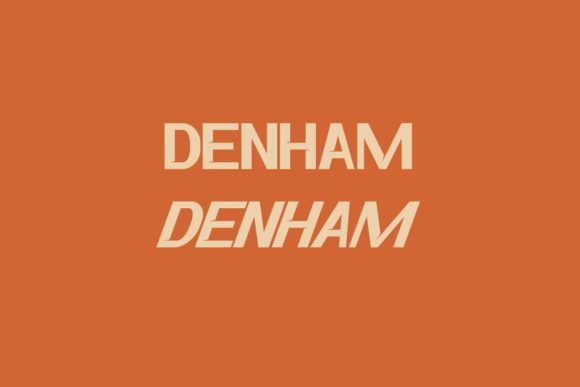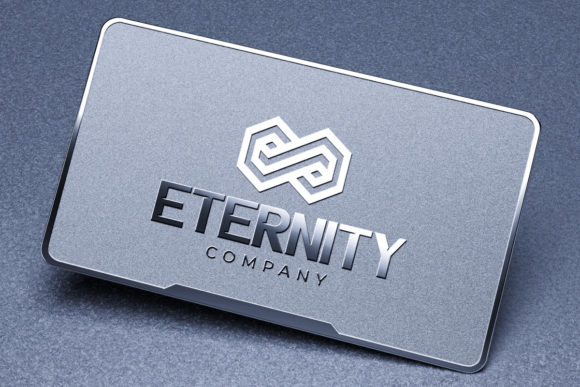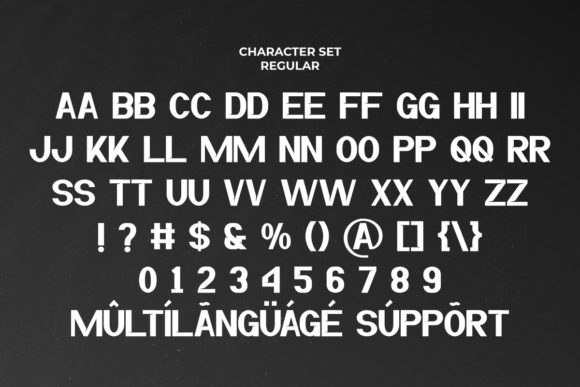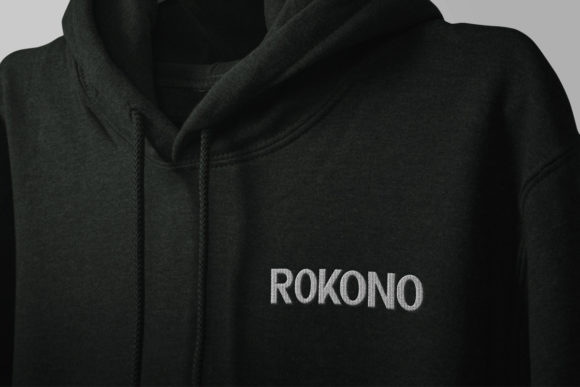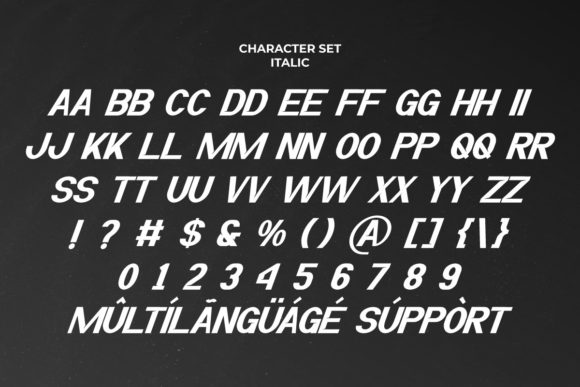
Introducing Denham Font: The Bold and Versatile Sans Serif for Your Creative Projects
Are you on the lookout for a font that can add a touch of boldness and uniqueness to your designs? Look no further than the Denham Font. This sans serif font is designed to make a statement, with its thick letters and sleek lines that can instantly elevate your creative projects. Whether you’re working on a logo, a brochure, or a website, Denham Font is an excellent choice to make your designs stand out from the crowd.
What Makes Denham Font So Special?
Denham Font is a bold and thick lettered sans serif font that is incredibly versatile. Its clean and modern design makes it perfect for a wide range of projects, from branding and advertising to packaging and digital media. The font’s bold and eye-catching style ensures that your message will grab the attention of your audience, making it an excellent choice for headlines, titles, and other display text.
Key Features of Denham Font
- Bold and Thick Letters: Denham Font features bold and thick letters that are designed to make a statement. Its unique style ensures that your text will stand out from the crowd, grabbing the attention of your audience.
- Sans Serif Design: The font’s sans serif design gives it a clean and modern look that is perfect for a wide range of projects.
- Highly Versatile: Denham Font is incredibly versatile, making it suitable for a large set of projects, from logos and brochures to websites and digital media.
How to Use Denham Font in Your Projects
Denham Font can be used in a variety of projects, including:
- Logo Design: Use Denham Font to create a bold and eye-catching logo that will make your brand stand out.
- Branding and Advertising: The font’s bold and attention-grabbing style makes it perfect for use in branding and advertising materials, such as brochures, flyers, and posters.
- Digital Media: Denham Font is also suitable for use in digital media, such as websites, social media graphics, and email marketing campaigns.
- Packaging Design: The font’s clean and modern design makes it an excellent choice for packaging design, adding a touch of sophistication and elegance to your products.
Tips for Getting the Most Out of Denham Font
To get the most out of Denham Font, here are a few tips to keep in mind:
- Use it as a Display Font: Denham Font is designed to be used as a display font, making it perfect for headlines, titles, and other display text.
- Experiment with Different Colors: The font’s bold and eye-catching style makes it perfect for use with a variety of colors, so don’t be afraid to experiment and find the perfect combination for your project.
- Pair it with Other Fonts: Denham Font can be paired with other fonts to create a unique and visually appealing design. Try pairing it with a sans serif font for a modern look or a serif font for a more traditional look.
In conclusion, Denham Font is a bold and versatile sans serif font that is perfect for a wide range of creative projects. Its clean and modern design, combined with its bold and eye-catching style, makes it an excellent choice for designers and crafters looking to add a touch of uniqueness to their designs. So why not give Denham Font a try and see how it can make your projects stand out?
With its highly versatile design and bold and eye-catching style, Denham Font is sure to become a go-to font in your design arsenal. So add it to your creative ideas and notice how it makes them stand out!